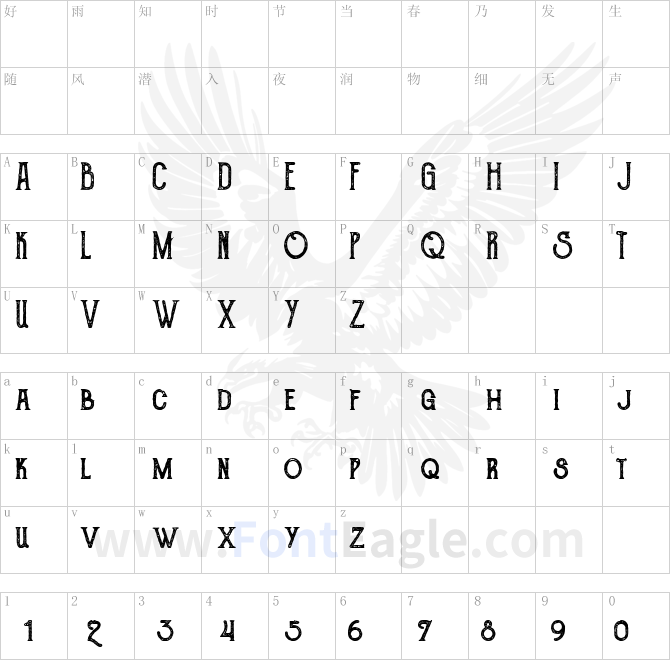
- Font name:The Goldsmith Vintage
The-Goldsmith-Vintage is a great font, widely used in graphic design, single-page menu design, poster design and other fields, and is deeply loved by designers.The-Goldsmith-Vintage download.